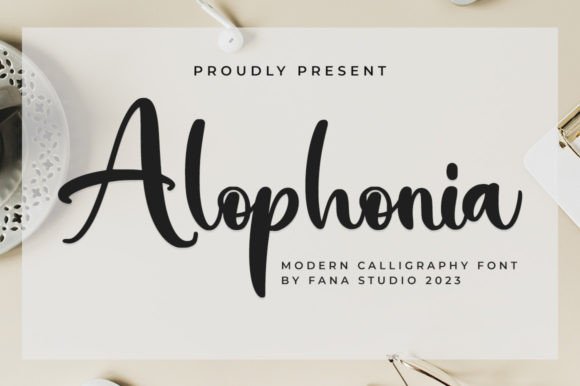
Discover the Elegance of Alophonia Font: Elevate Your Designs with a Personal Touch
Have you ever been in the middle of a design project, and suddenly, you’re stuck on finding the perfect font? I recall a recent experience where a client requested a logo that exuded elegance and sophistication. After hours of searching, I stumbled upon the Alophonia Font, and it was love at first sight! ✨ This beautiful script font has been a game-changer for my designs, and I’m excited to share its beauty with you.
The Good: What I Love About Alophonia Font
- ✨ Elegant and classy look that’s perfect for high-end designs
- ✅ Highly versatile and suitable for various projects, from logos and branding to social media posts and product packaging
- 🌈 Gorgeous typographic features that add a personal touch to any design
- 💻 Excellent for digital and print designs, with a wide range of applications
The Not-So-Perfect: A Few Quirks to Consider
- 🤔 Some users might find the font a bit too ornate for very casual or playful designs
- ⚠️ Limited availability of certain characters and glyphs, which might require additional design work
The Story Behind Alophonia Font: A Glimpse into Its Design Inspiration
Alophonia Font was designed with the goal of creating a beautiful, elegant script font that would add a personal touch to any design. The designer aimed to craft a font that would be both modern and classy, with a wide range of applications. While the actual story behind the font’s creation might be unknown, it’s clear that Alophonia Font has been designed with love and care, making it a valuable addition to any designer’s toolkit.
Q: What type of designs is Alophonia Font best suited for?
A: Alophonia Font is highly versatile and suitable for various projects, including logos and branding, invitations, stationery, wedding designs, social media posts, and product packaging.
Q: Is Alophonia Font suitable for digital designs?
A: Yes, Alophonia Font is optimized for digital designs and can be used in a variety of digital applications, including social media posts, website headers, and more.